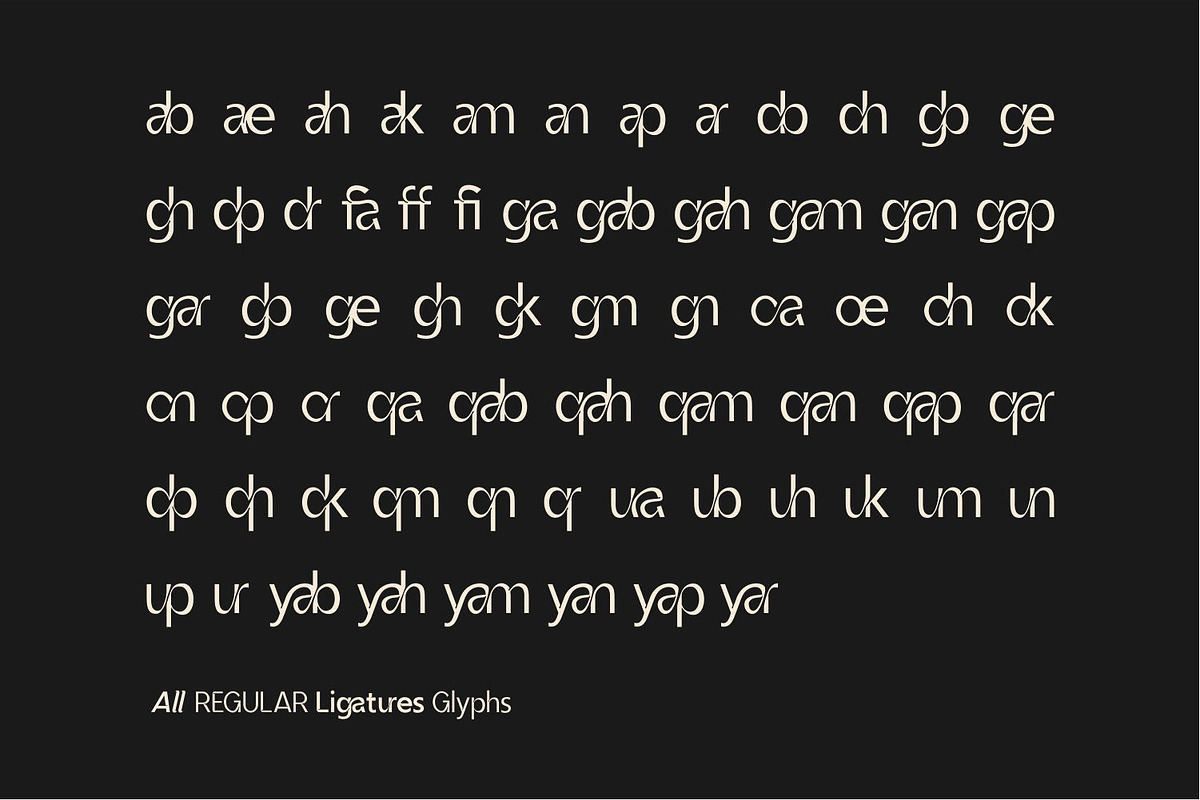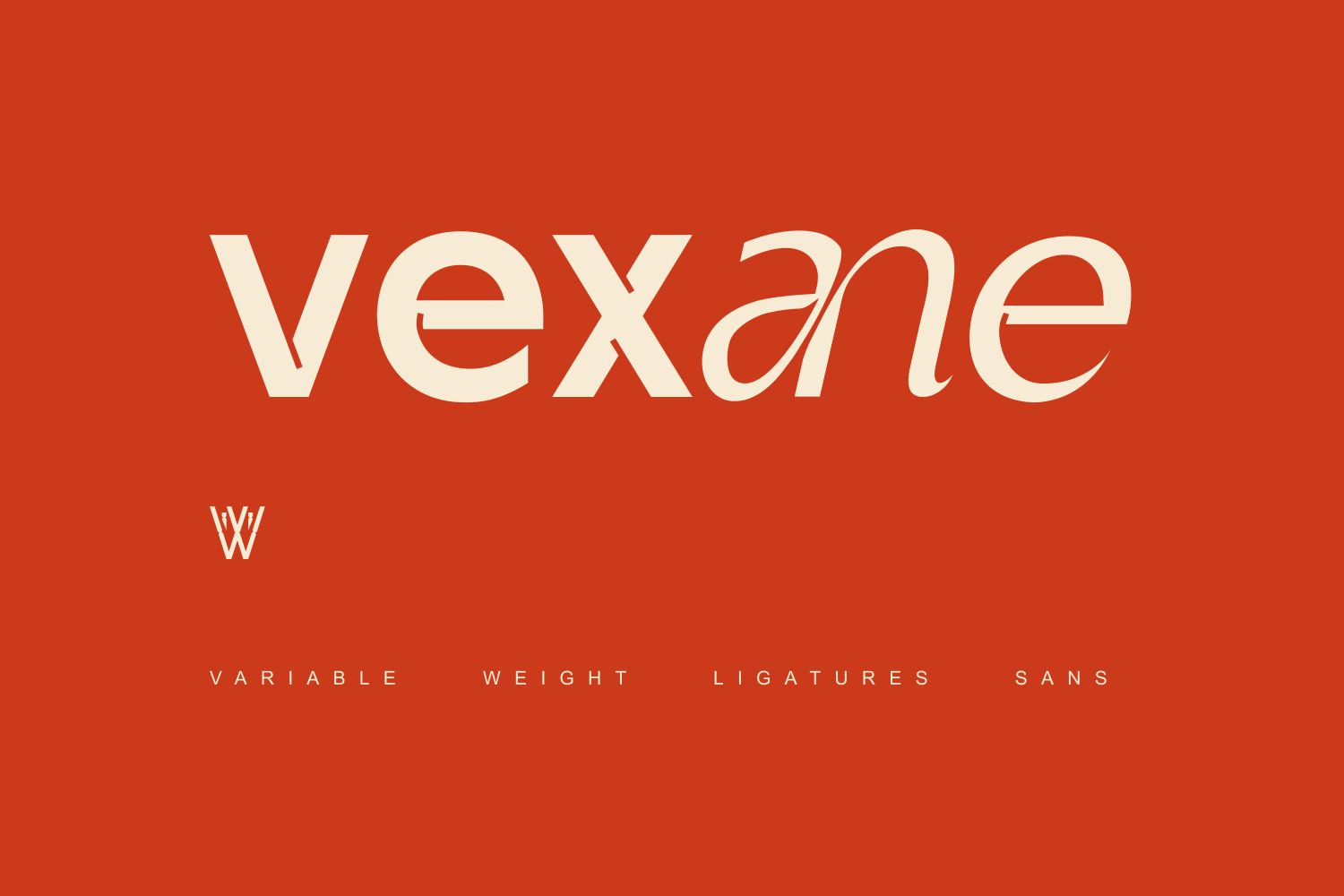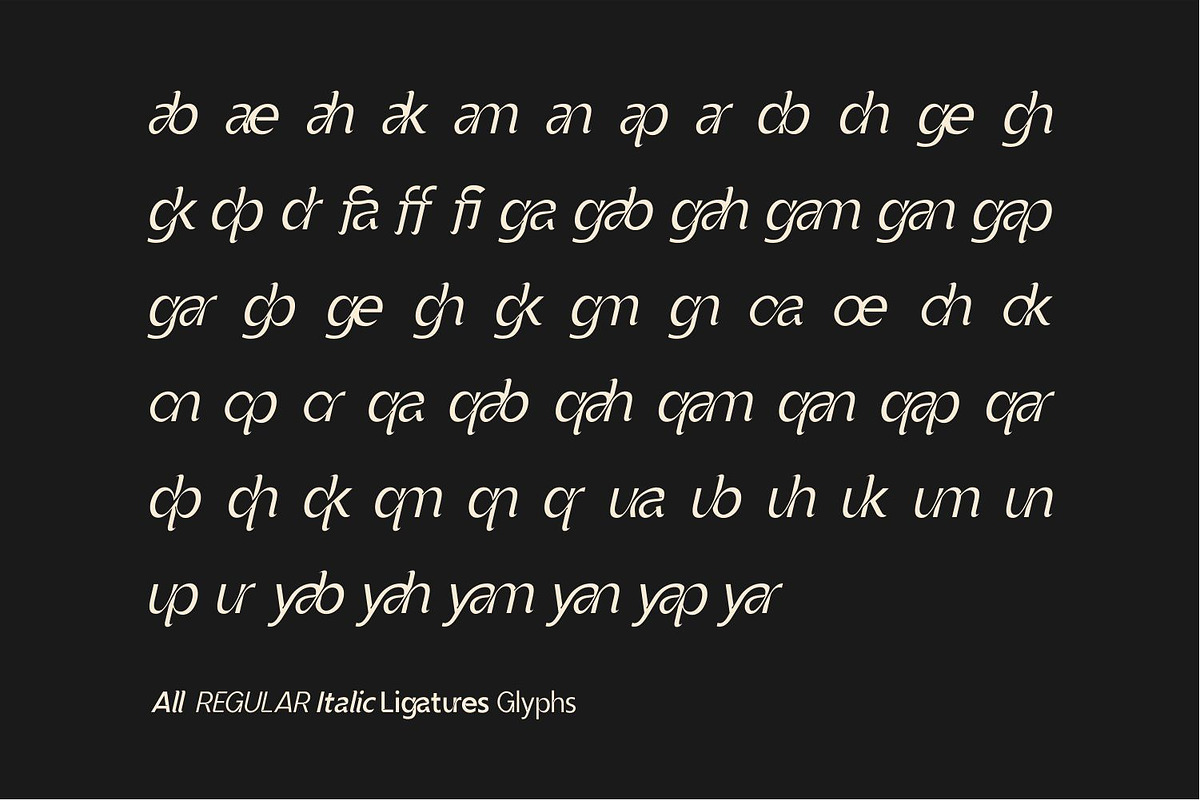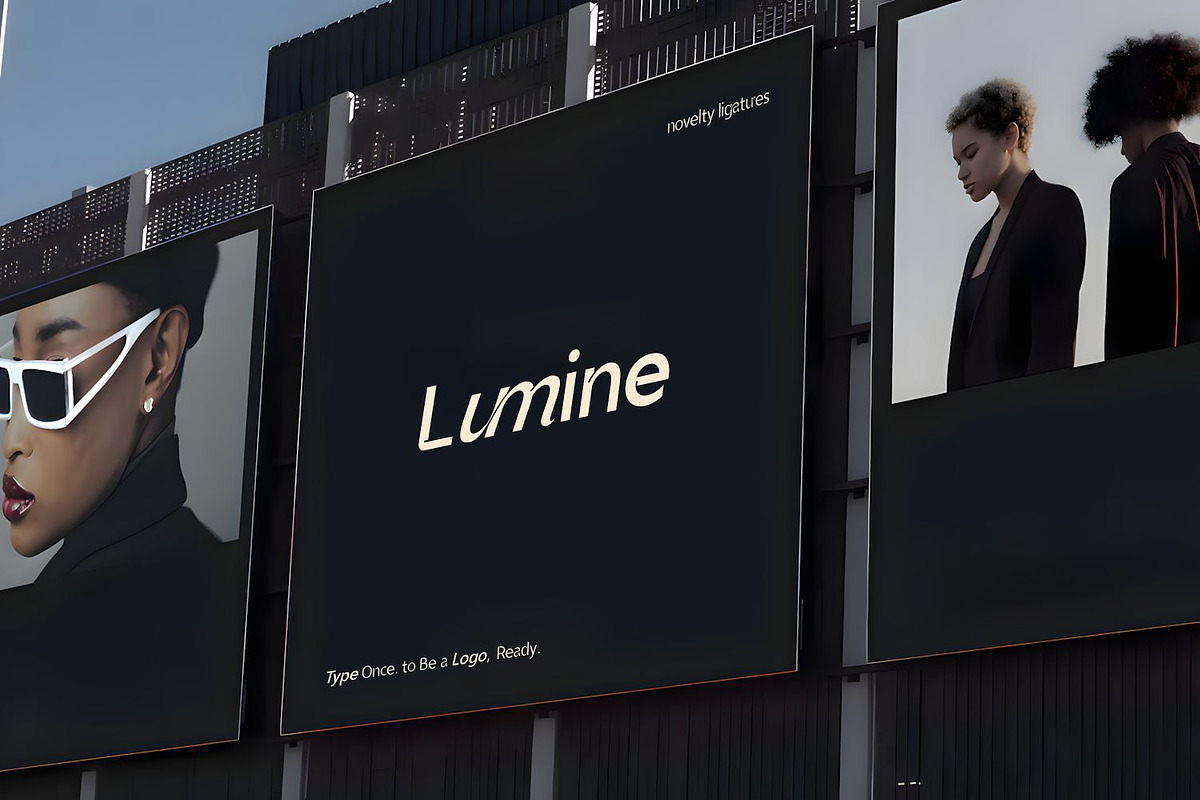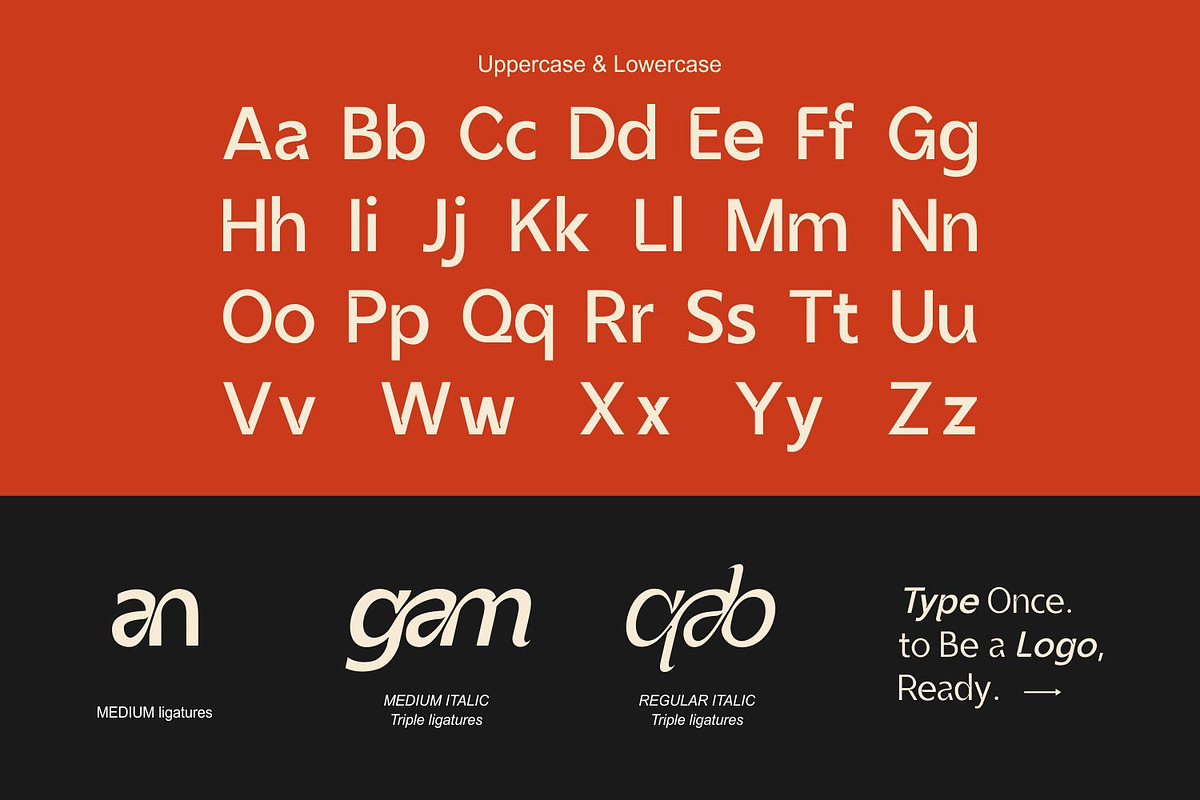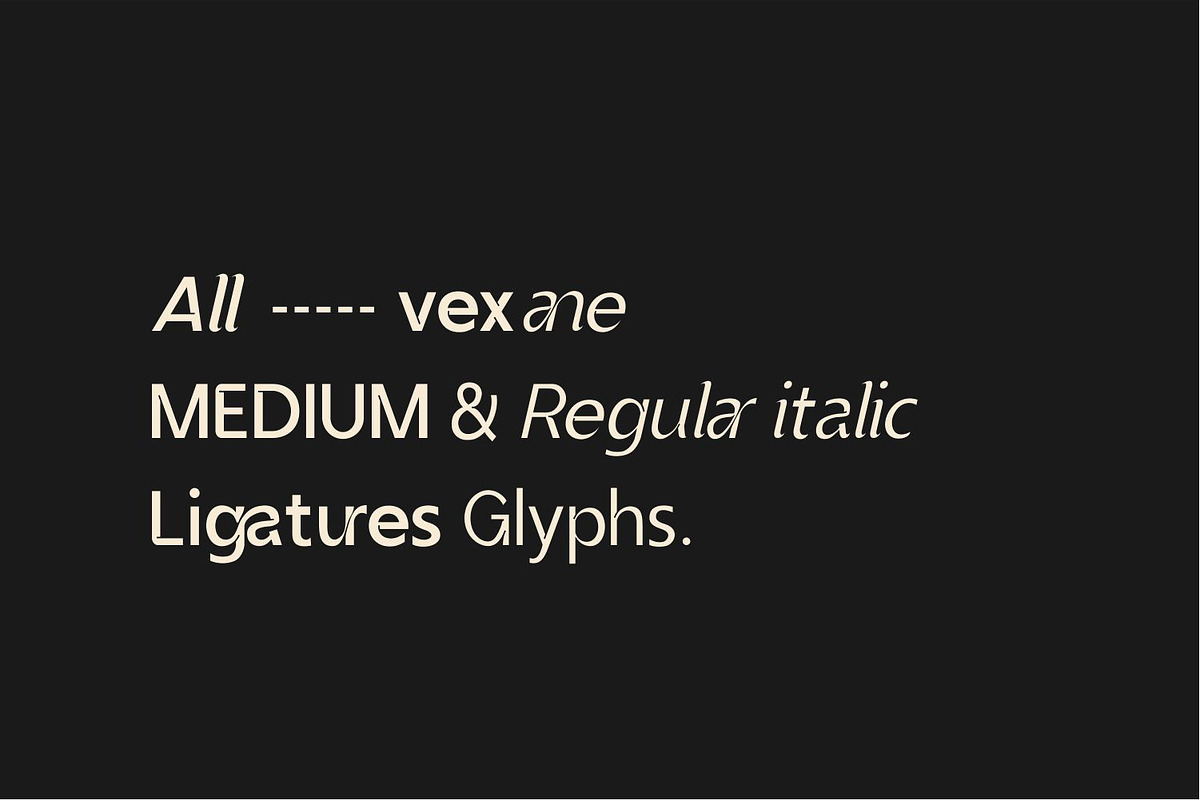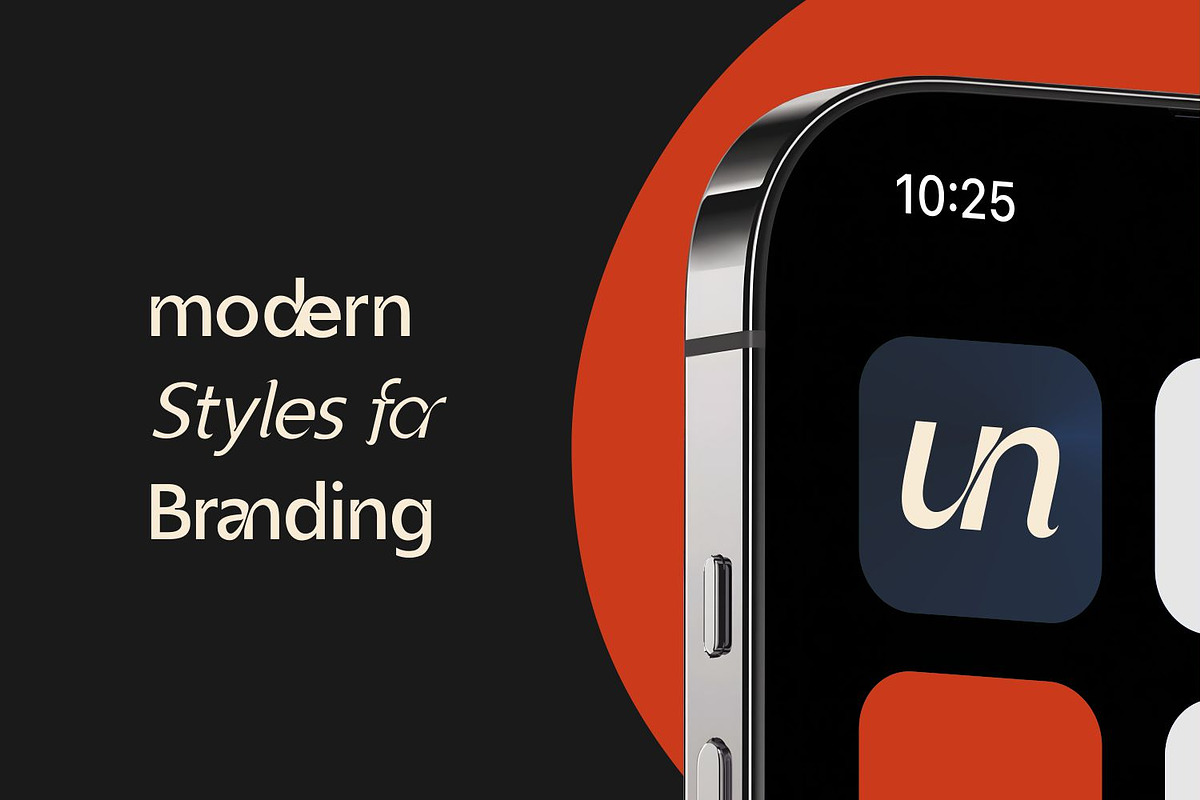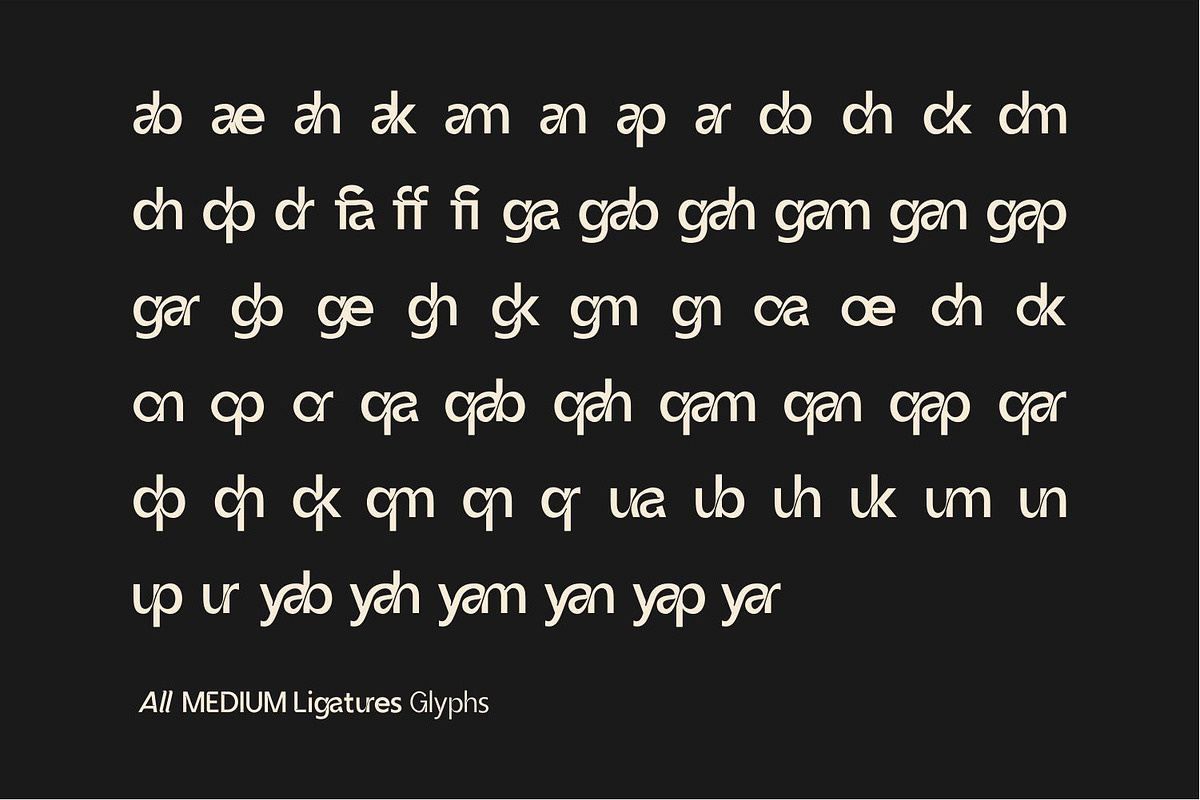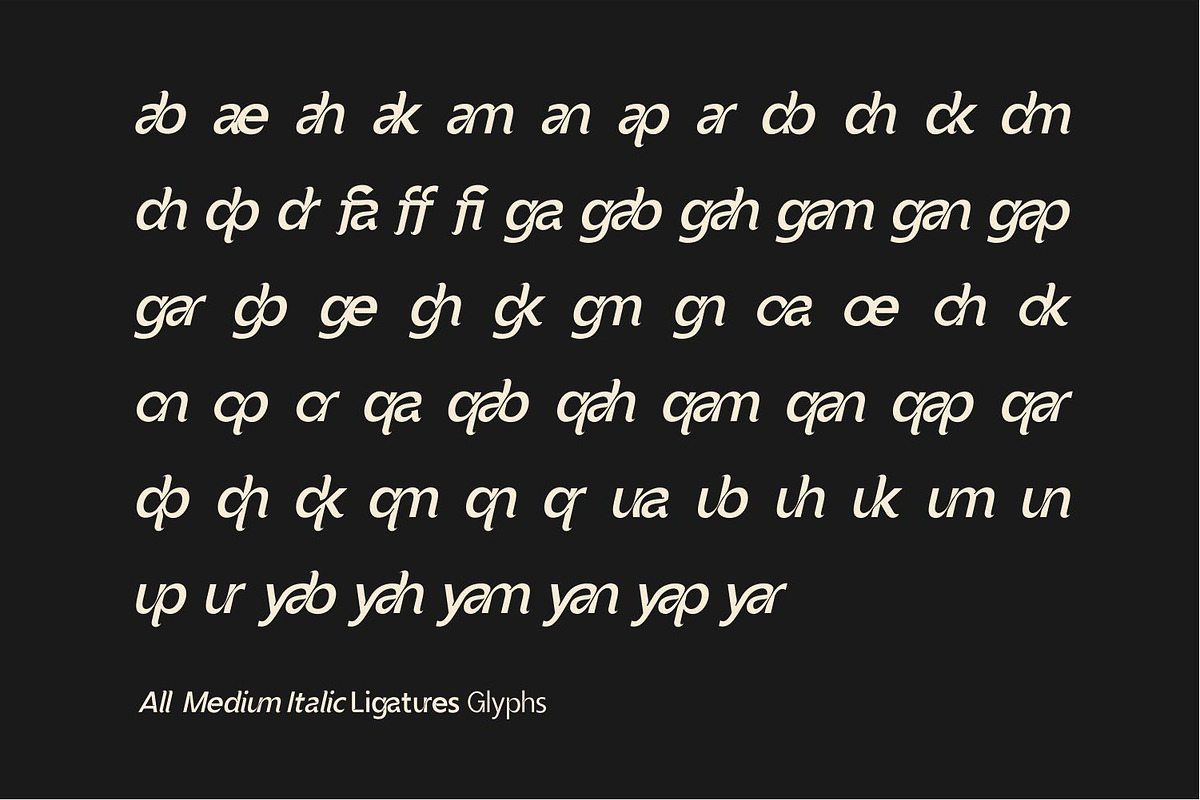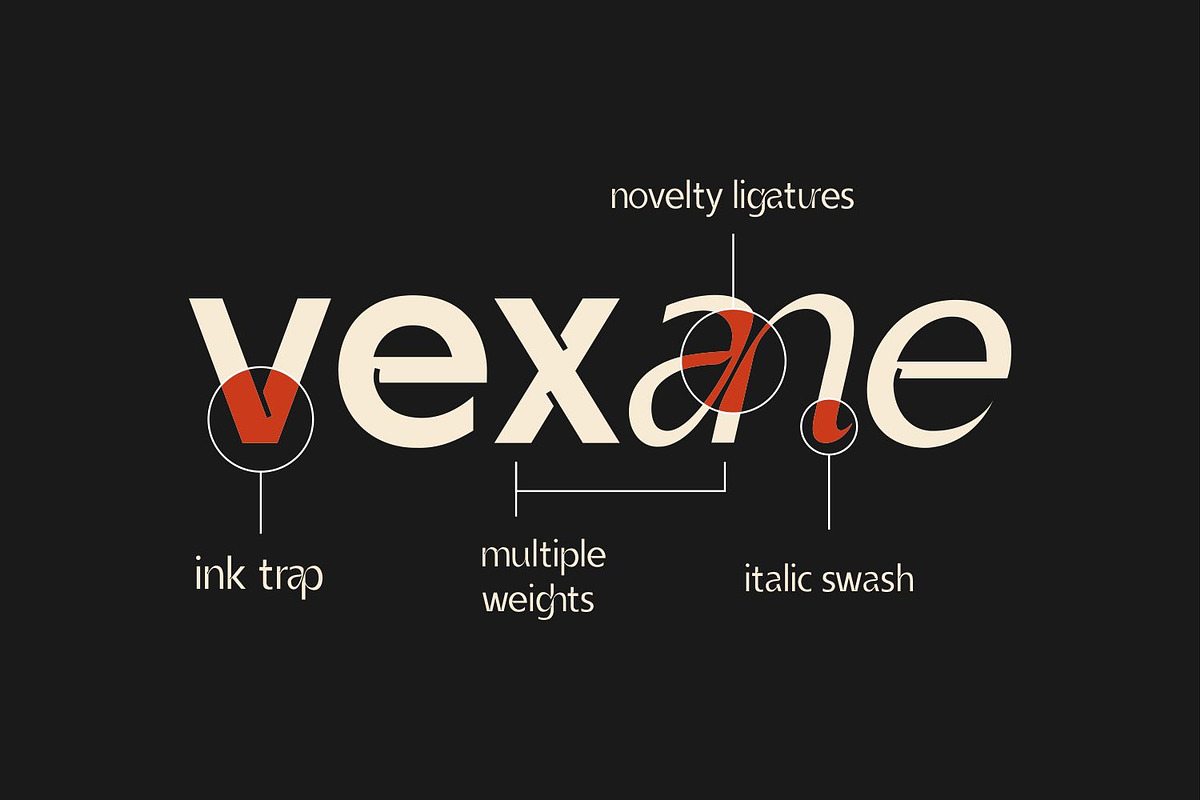
Vexane – Editoral Logo fonts
Vexane is a contemporary grotesk sans font crafted for designers who want instant brand presence without complex customization.
With its distinctive ligatures and balanced proportions, Vexane allows you to create logo-ready wordmarks simply by typing. No extra glyph hunting, no over-styling — just clean, confident typography that works.
Designed for modern branding needs, Vexane performs beautifully across digital interfaces, editorial layouts, startup identities, and product visuals.
Modern grotesk sans serif design Expressive and functional ligatures Multiple weights with smooth consistency Uppercase & lowercase characters Numbers, punctuation, and symbols included Clean, logo-friendly letterforms
Logo & brand identity Startup & tech branding UI / UX design Editorial & headline typography Social media & digital design Web and app interfaces
From typing once to branding — Vexane helps your words stand out instantly.